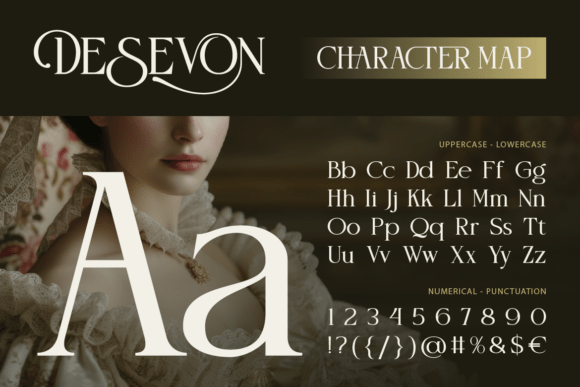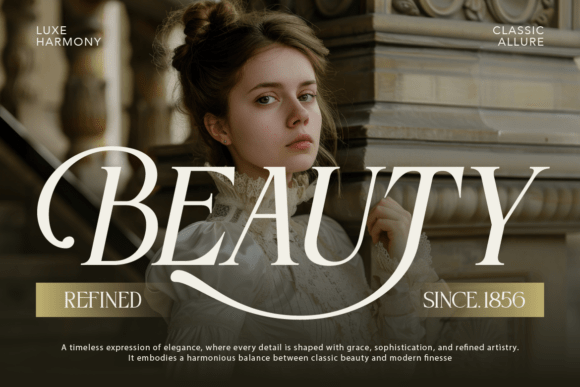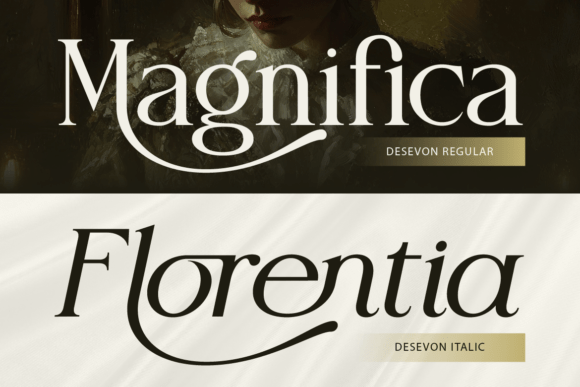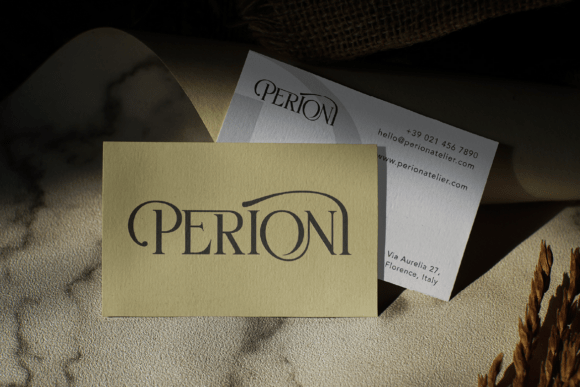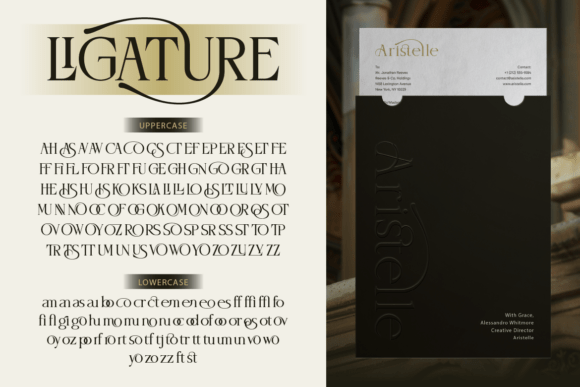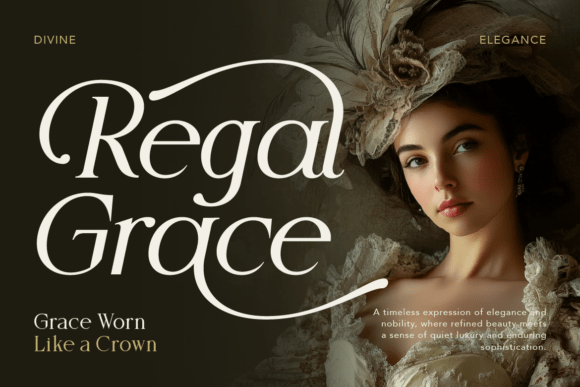
Introduction to Desevon Font
Imagine you’re working on a high-end branding project, and you need a font that exudes elegance and sophistication. You’ve spent hours searching for the perfect design resource, but nothing seems to capture the essence of luxury you’re aiming for. That’s when you stumble upon the Desevon Font – a refined and elegant serif typeface that’s sure to elevate your creative project to new heights.
As a designer, you know the importance of using high-quality fonts in your work. The Desevon Font is a game-changer, offering a perfect balance of classic charm and modern finesse. With its transparent background and stunning stylistic alternates, this font is perfect for designers who want to add a touch of exclusivity to their designs. Whether you’re working on luxury branding, fashion editorials, or wedding invitations, the Desevon Font is a valuable asset that’s sure to impress.
Key Features of Desevon Font
- High-quality design resource with a unique, creative aesthetic, ideal for various projects.
- Comes with a transparent background, providing maximum flexibility for designers.
- Features a clear, legible font with a high resolution of 300 DPI, ensuring crisp and sharp text.
- Designed to be versatile, making it suitable for a variety of creative projects, from logos to digital art.
- Available in multiple sizes, including small caps, making it easy to customize and use in various contexts.
- Unique and stylish design: The Desevon Font has a distinctive look that sets it apart from other fonts. It’s perfect for designers who want to add a touch of elegance to their projects.
- Limited character set: The font’s character set is relatively limited, which may be a drawback for designers who need to work with a wide range of characters.
- Not suitable for large-scale projects: Due to its unique design, the Desevon Font may not be the best choice for large-scale projects where consistency is crucial.
Overall, I’m impressed with the Desevon Font’s potential and versatility. While it may have some limitations, it’s definitely a valuable addition to any designer’s toolkit.
Desevon Font
Desevon Font is a high-quality, versatile font perfect for creative projects. With a transparent background, it’s ideal for designers looking for a design resource that can elevate their work.
To get the most out of Desevon Font, experiment with different font sizes, colors, and styles. You can also use it in combination with other design elements, such as images and graphics, to create a unique and eye-catching design.
Desevon Font is perfect for a variety of creative projects, including logos, graphics, and presentations. It’s also great for creating custom typography and adding a personal touch to your designs.